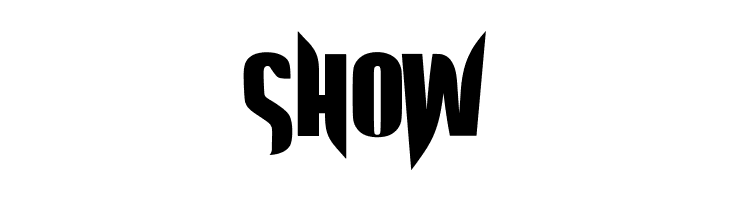
CF Second Son School PERSONAL Regular Font
- Font: CF Second Son School PERSONAL Regular
A bold, dynamic font with sharp, angular strokes and a rebellious, graffiti-like style.